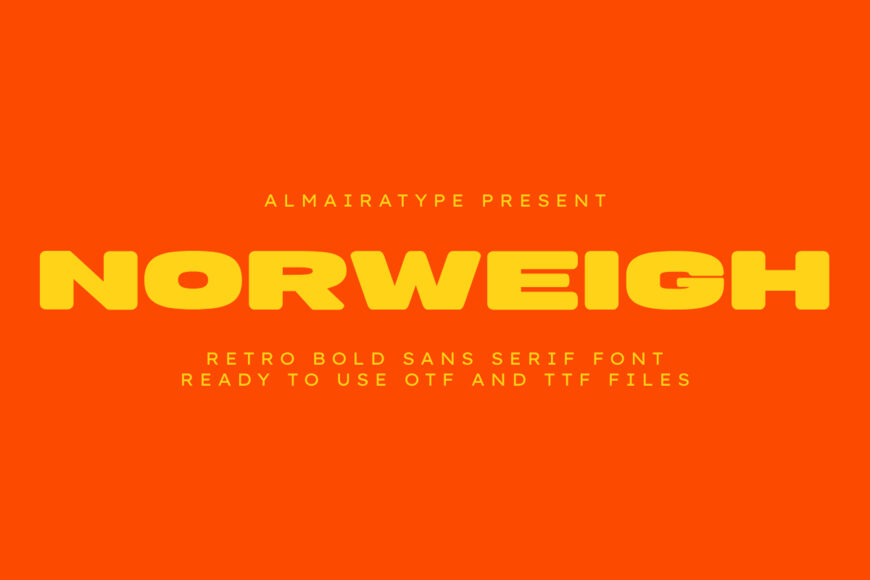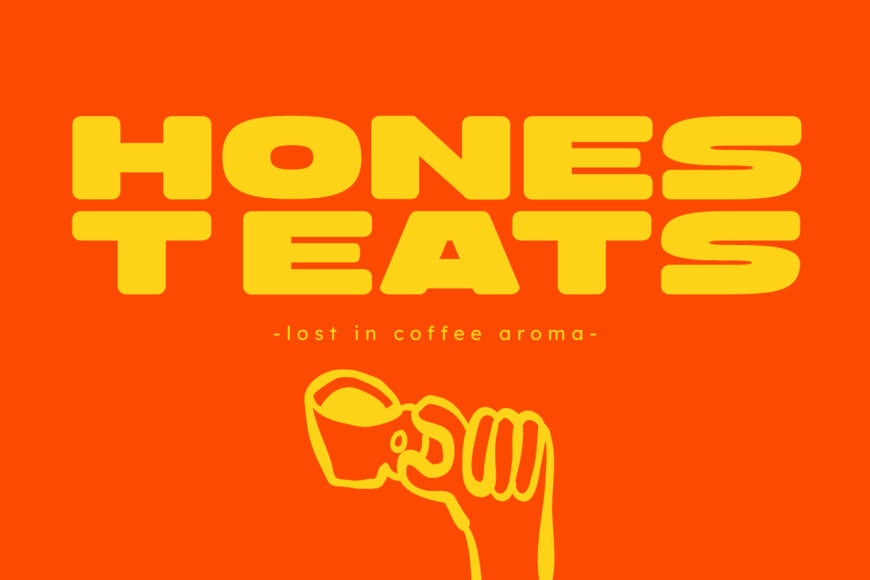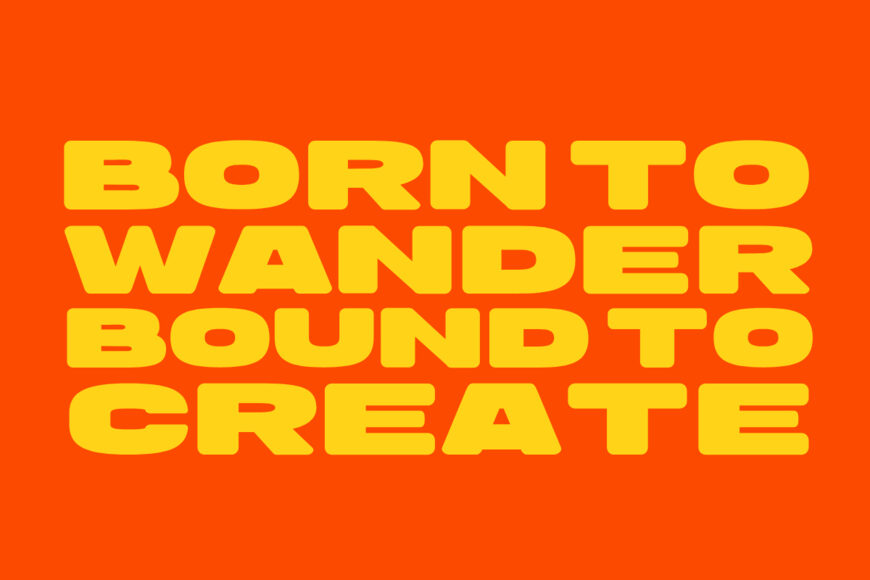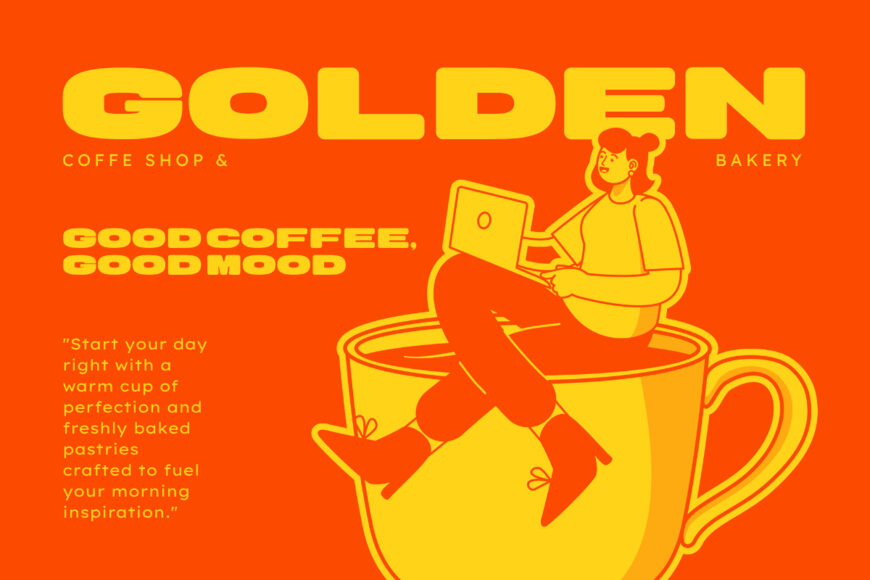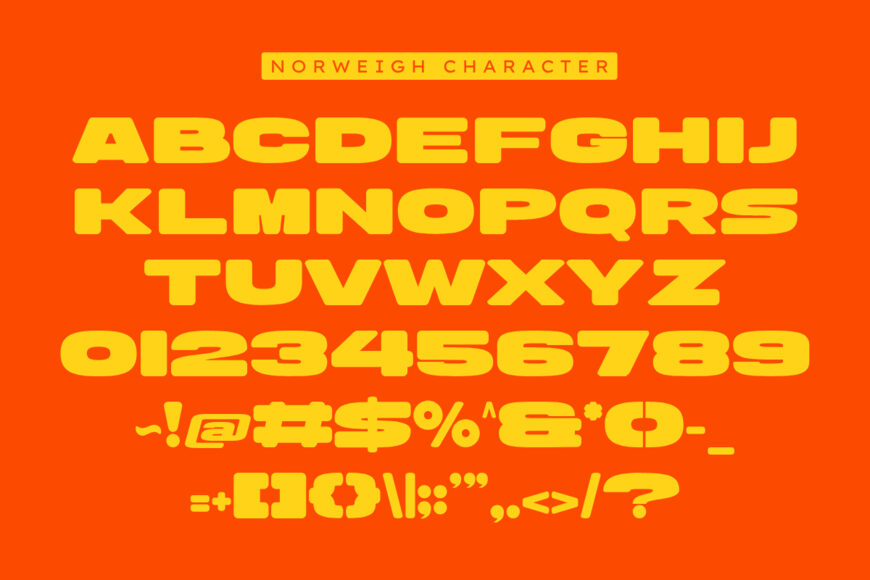
Make a bold, commanding, and delightfully nostalgic statement with Norweigh, an ultra-bold retro extended sans serif font engineered for creators who want their headlines to pop with a solid, confident charm. Meticulously structured with a massive display weight, wide blocky baselines, and softly rounded corners, this versatile font brings an instant blend of vintage lifestyle warmth and clean modern urban professionalism to any creative canvas.